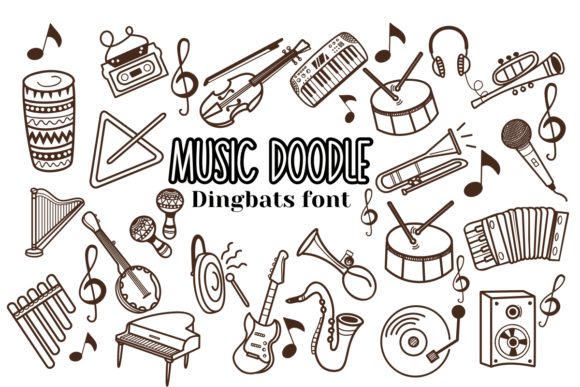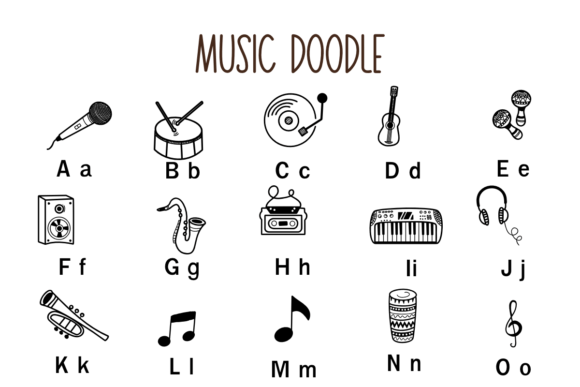
Music Doodle Font
Music Doodle is a fun dingbats font with a musical theme. This font can enhance your creative projects such as wedding invitations, DIY, crafts, decorations, logos, and many other creative ideas.